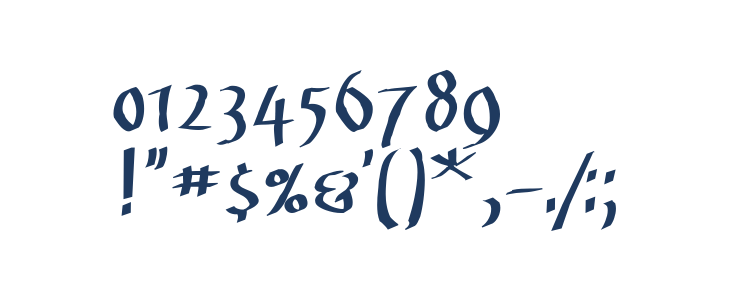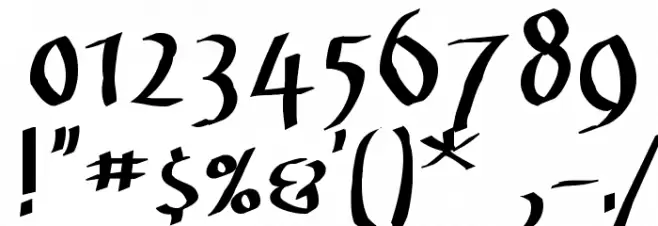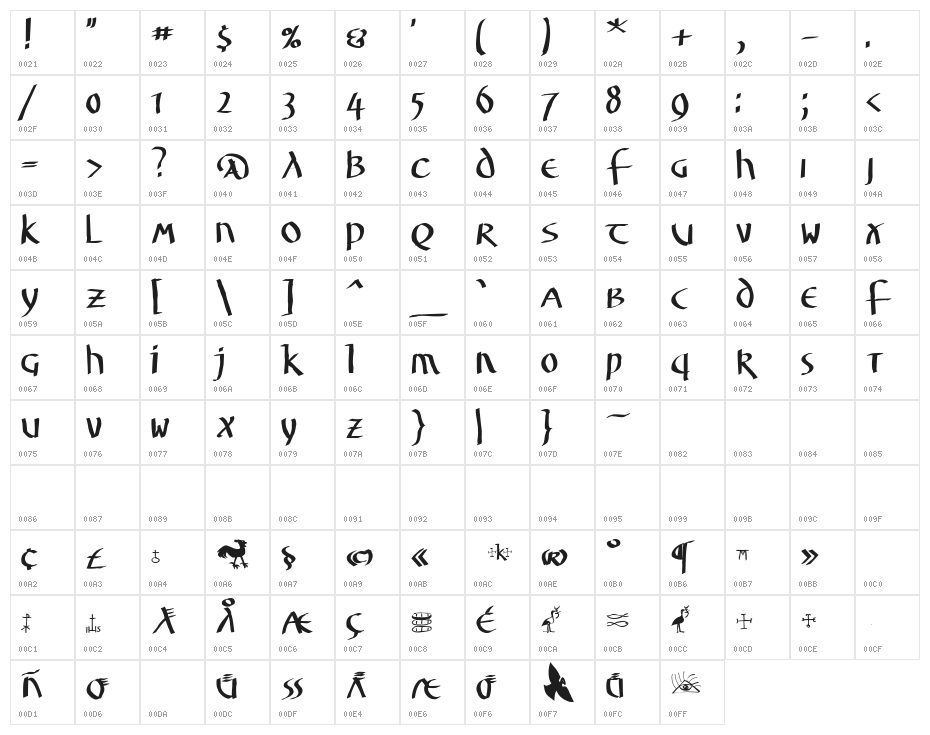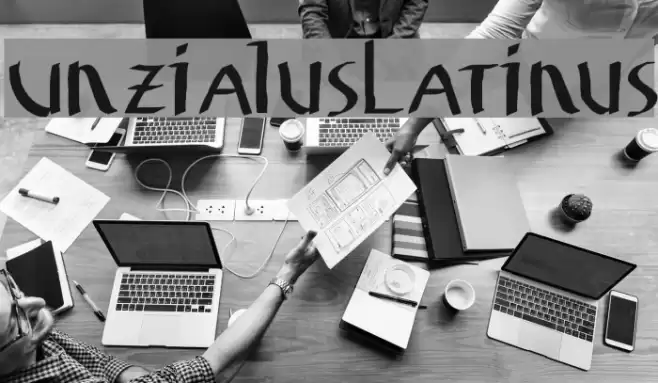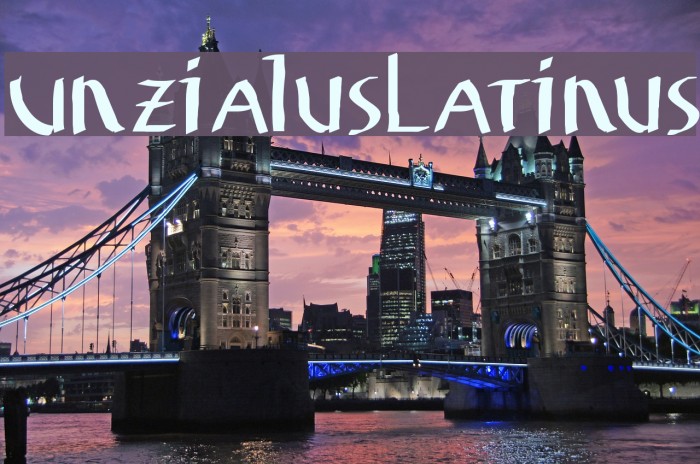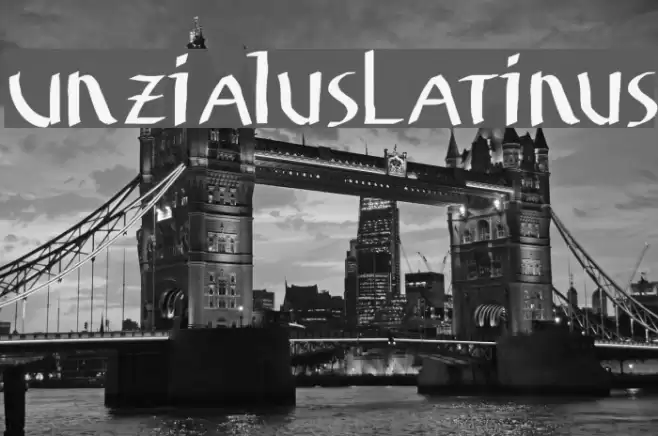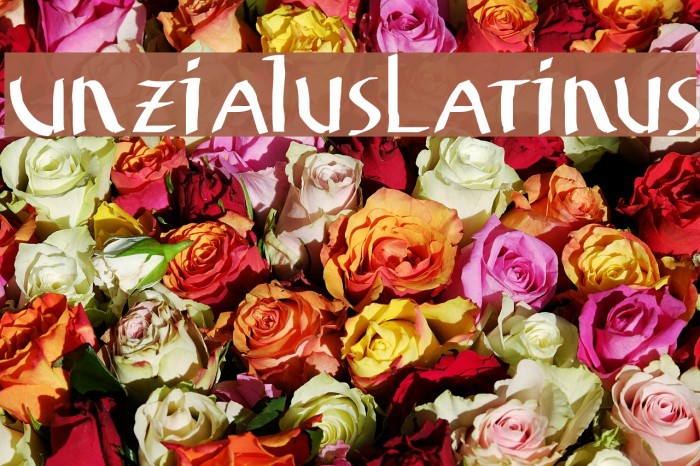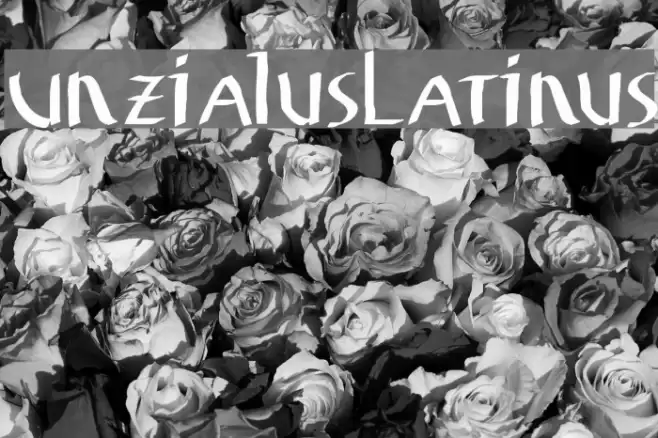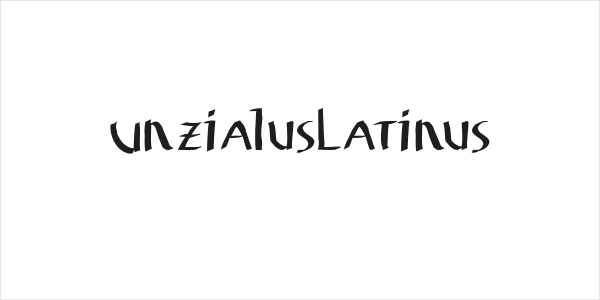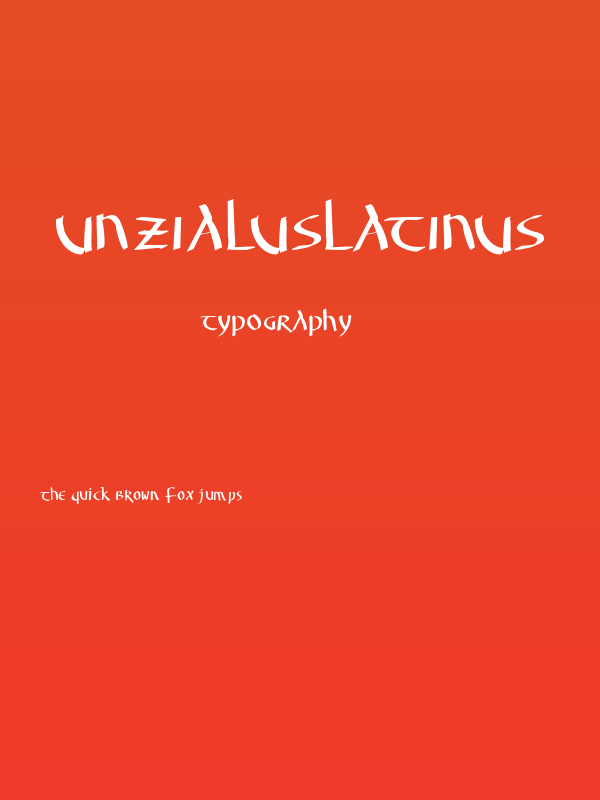
UnzialusLatinus Font
UnzialusLatinus Description
This font features a distinctively medieval and calligraphic style, reminiscent of ancient scripts. The characters are bold and have a hand-drawn appearance, with a slight slant that adds to their dynamic nature. The uppercase letters are particularly ornate, with exaggerated serifs and strokes that give them a dramatic flair. The lowercase letters maintain a consistent style, with unique curves and angles that enhance the font's historical aesthetic. Numbers and special characters are designed to match the overall theme, ensuring a cohesive look across all text elements.